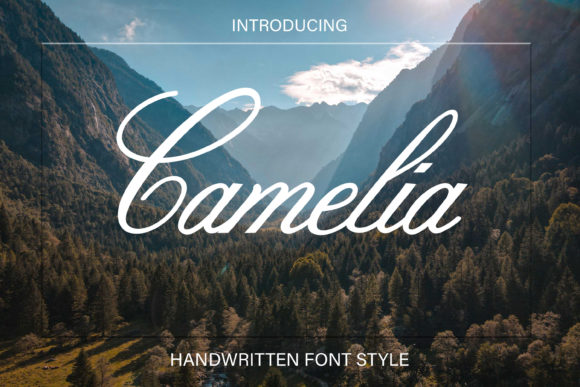
The Elegance of Camelia Font: A Designer’s Delight
I’ll never forget the time I was working on a wedding invitation project, and my client asked for a font that exuded elegance and sophistication. I scoured the internet, tried out countless fonts, but nothing seemed quite right. That was until I stumbled upon Camelia Font. It was love at first sight! 💕 The flowing curves, the whimsical touches, and the overall sense of refinement won me over. In this article, I’ll share my experience with Camelia Font, its features, and how to make the most of it in your designs.
A Personal Review of Camelia Font
- ✨ Elegant and stylish handwritten feel
- ✅ Works great for wedding designs, birthday cards, and other personal creations
- 💫 Features OpenType glyphs and stylistic alternates for added versatility
- 🎨 Highly legible, even at smaller font sizes
While Camelia Font is an excellent choice for many projects, there are a few things to keep in mind:
- ⚠️ May not be the best fit for very formal or corporate designs
- 🤔 Some users may find the font a tad too ornate for certain applications
The Story Behind Camelia Font
Camelia Font was designed by a talented typographer who drew inspiration from traditional calligraphy and handwriting. The goal was to create a font that was both elegant and approachable, perfect for designs that require a personal touch. The result is a font that exudes sophistication and refinement, while still feeling friendly and inviting.